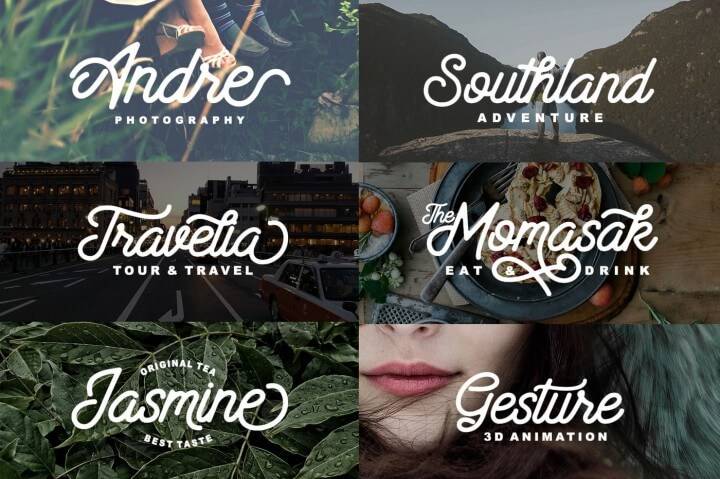
Santana Script Font Free
Today, we will show you Santana Script Font, a lovely script and handwritten Font that was updated on January 30, 2018. This Font is only available for personal use! Uppercase, lowercase, Numeric, and some Special and Alternate characters are all included in the typeface. There are around 90 beautiful ligatures in this magnificent typeface. The Font comes in two different formats: OTF and TTF. The font is designed and shared by Pen Culture.
The beautiful script and Handwritten Font also have multilanguage support such as Danish, Finnish, English, Spanish, Dutch, German, Icelandic, Italian, Norwegian, Portuguese, Indonesian, Swedish. Because this Font is PUA encoded, you can easily access all of the glyphs and swashes! The font is beautifully created and is sure to become a favourite. It keeps its classic calligraphic elements while remaining modern and fresh. Become enamoured with it and take your work to new heights! So, try this beautiful font soon.
Santana Script Font is ideal for logos, branding, invites, stationery, wedding designs, logos, business cards, covers, t-shirts, social media posts, and more. It will also be utilized to generate stunning images and text in a variety of colours and styles. The Font is ideal for t-shirt design as well as travel blogging.